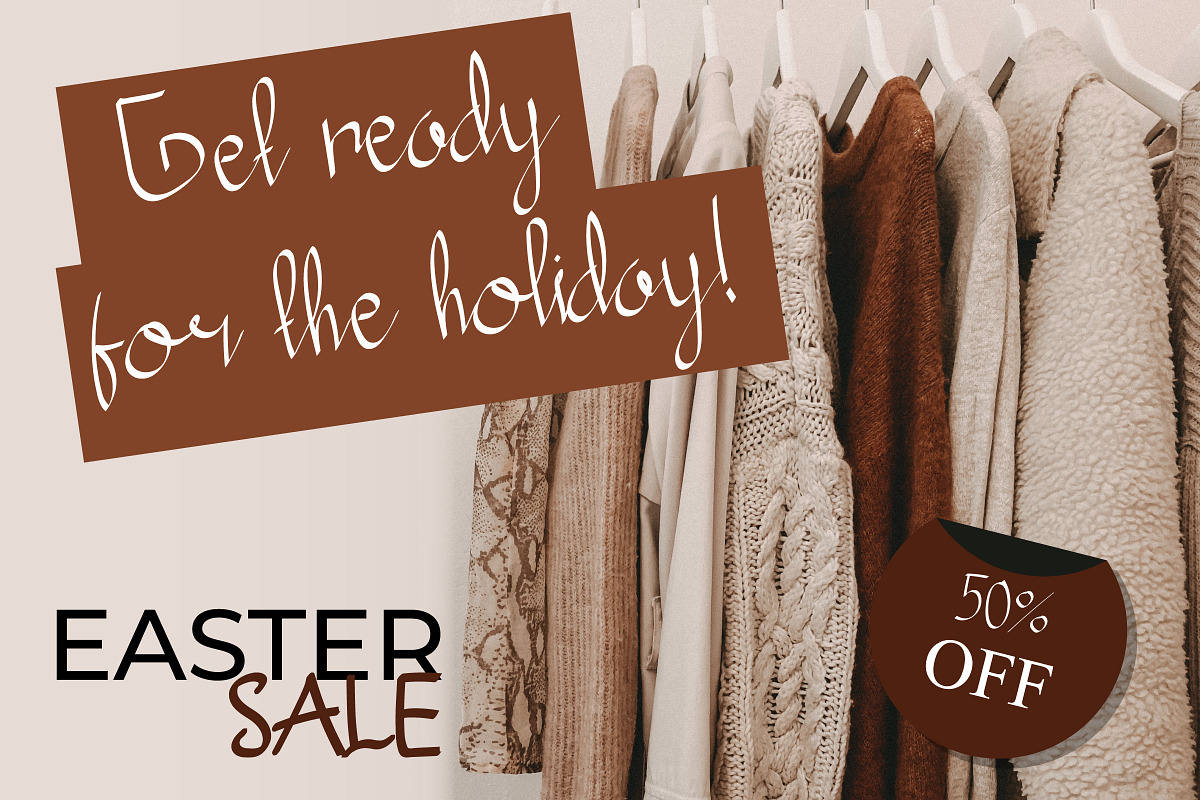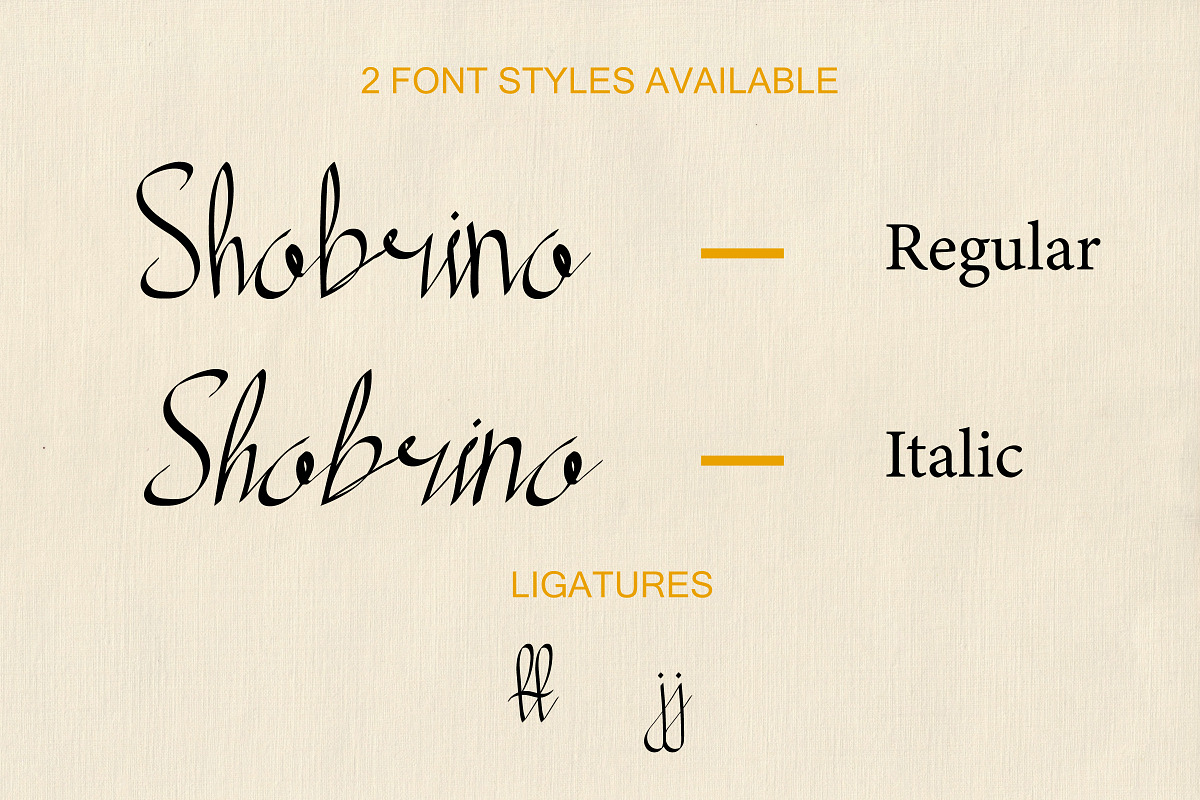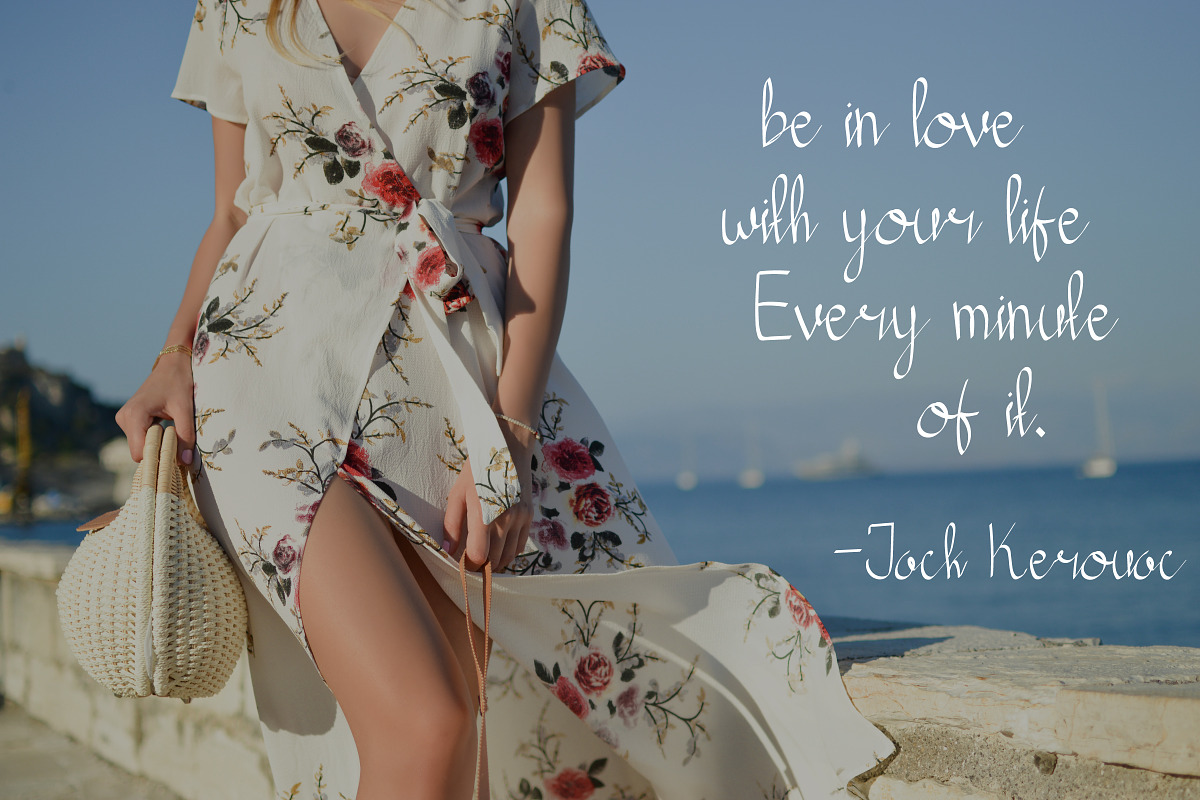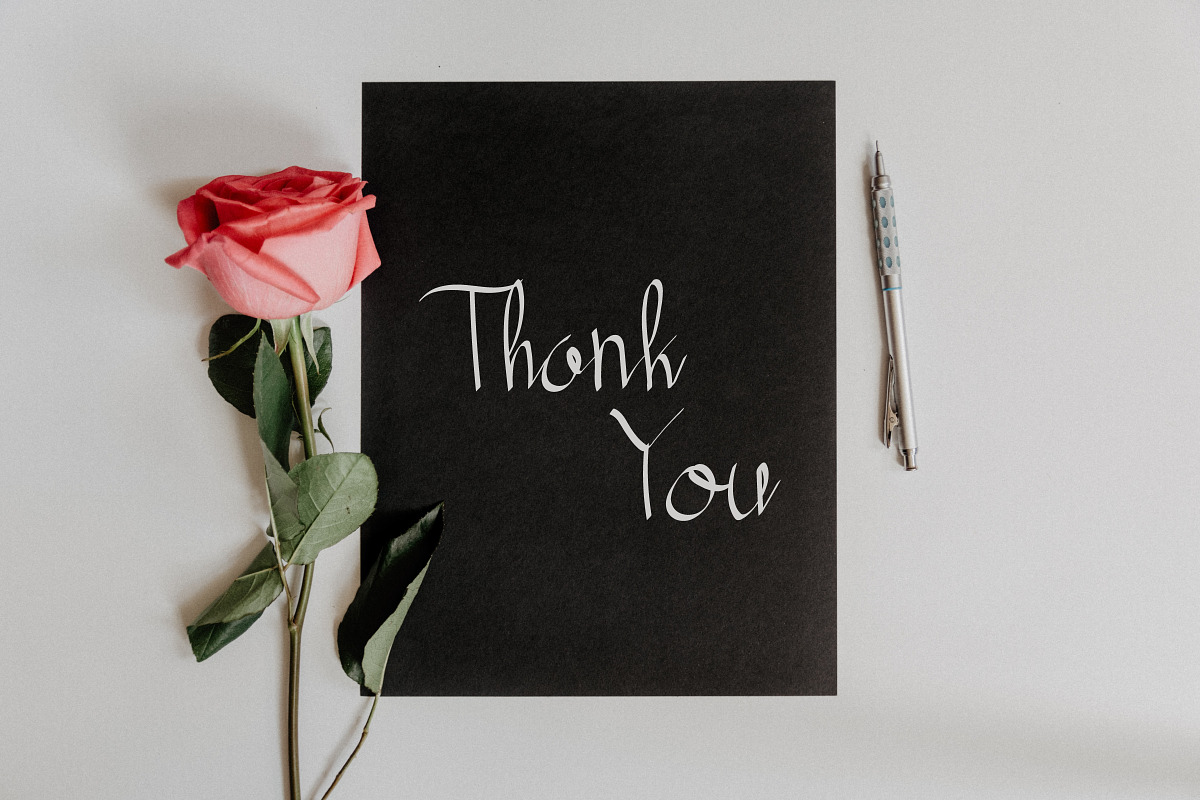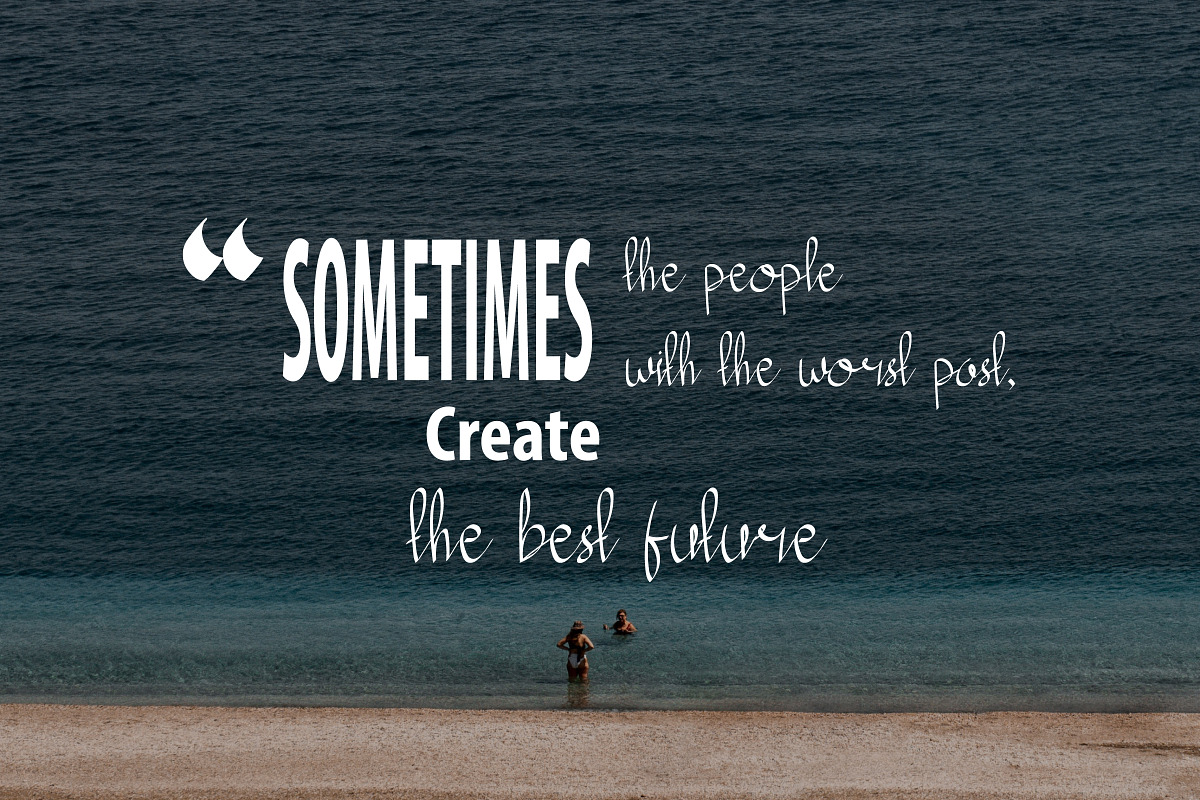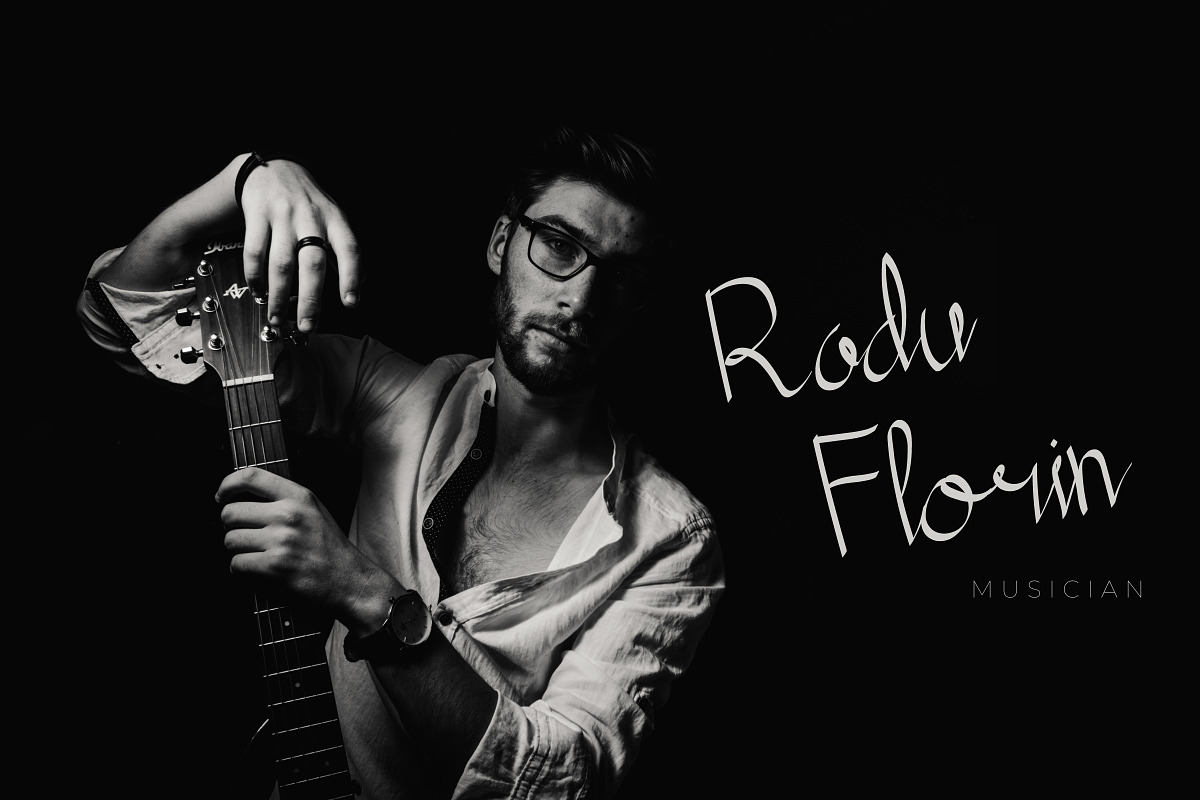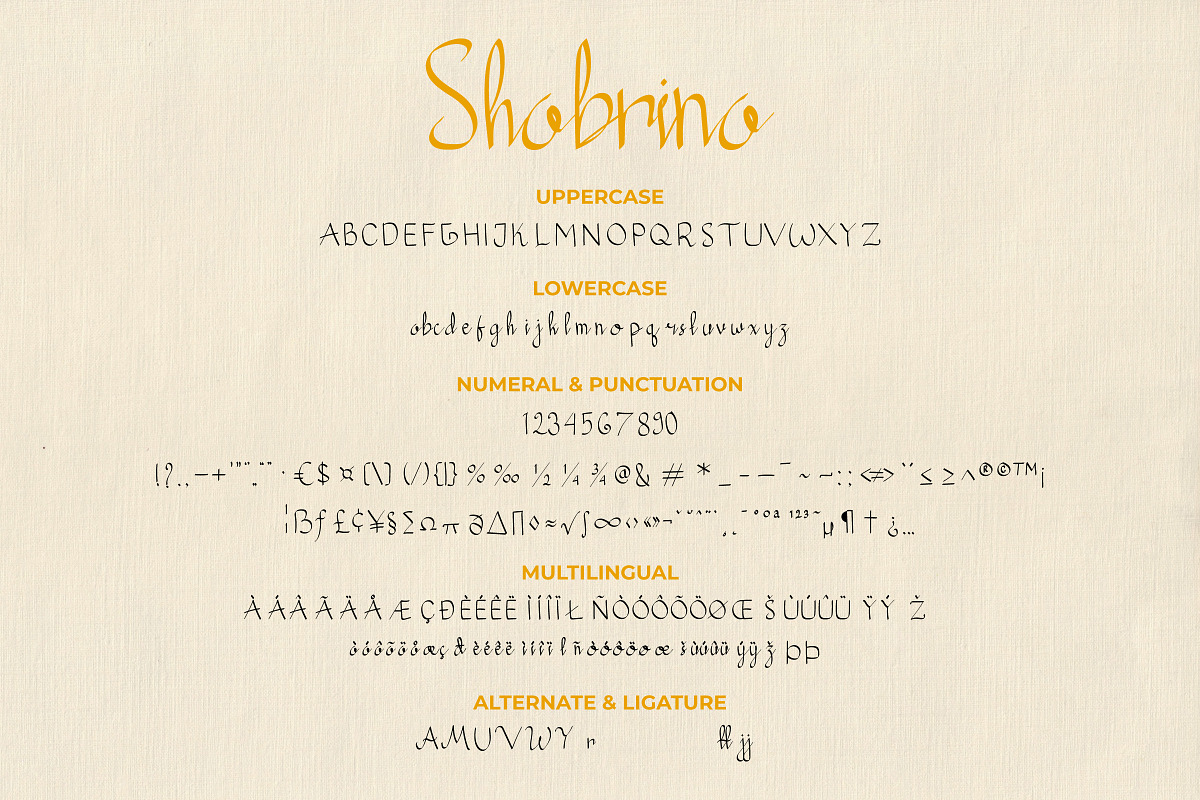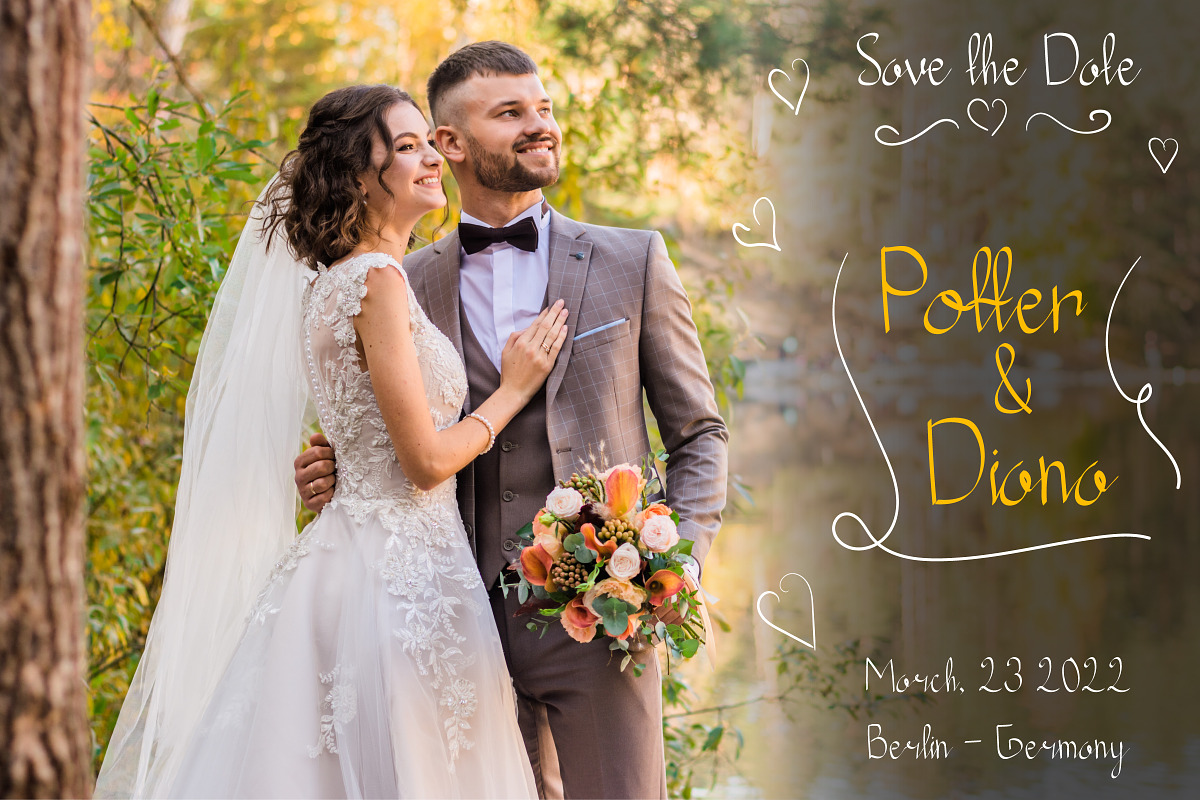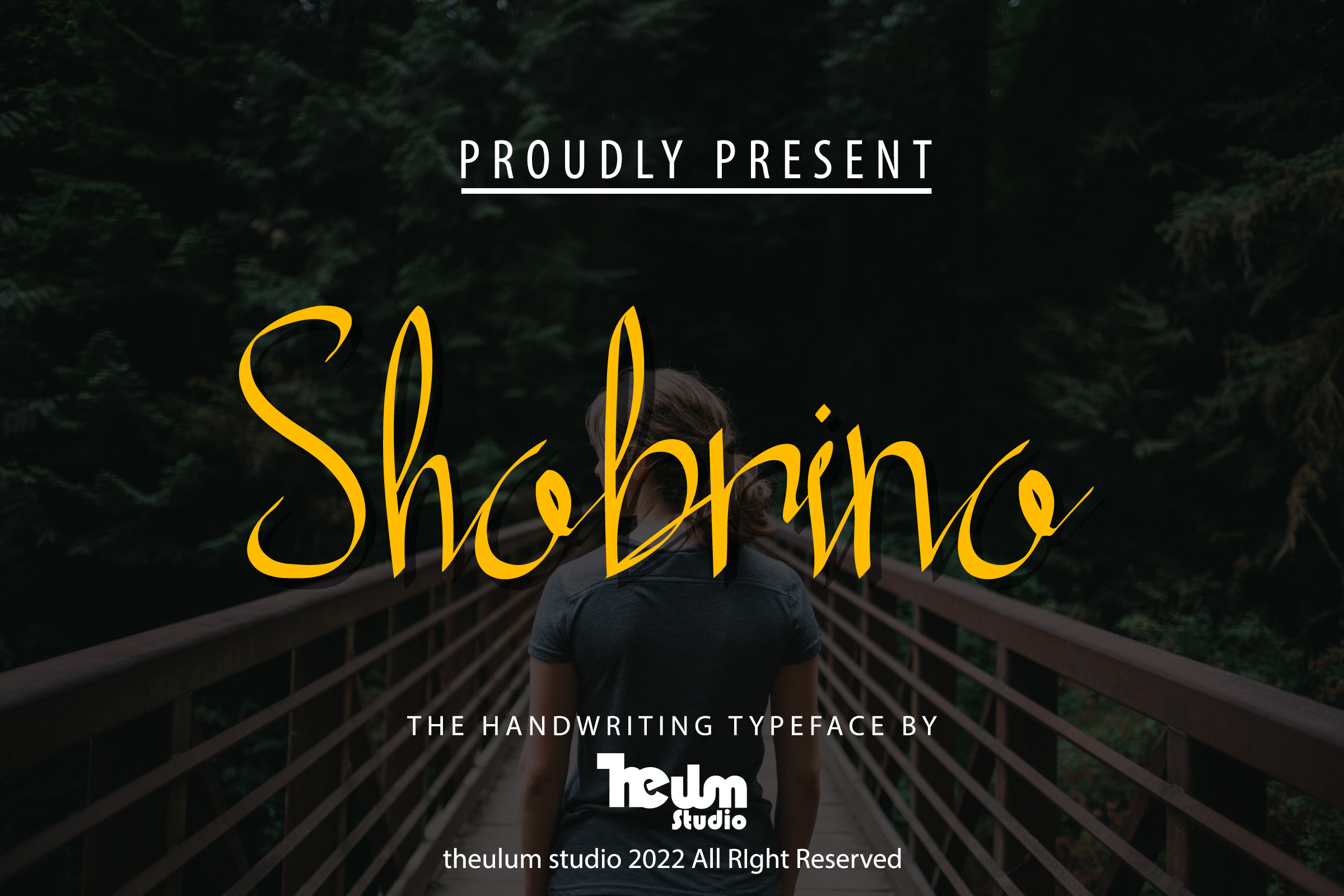
Shabrina - Brush Script Wedding Font
Shabrina is a handwriting font inspired by the beauty of a woman named Adani Shabrina. This font also made from her handwriting. Beauty and aesthetic style from this font will make your design look perfect in any aspect.
- Ton of glyphs (include Uppercase, Lowercase, Numerals & Punctuations, and available in Multilingual) Works on PC & Mac
- 2 Font Styles (Regular & Italic)
- Multilgual
- Ligarure